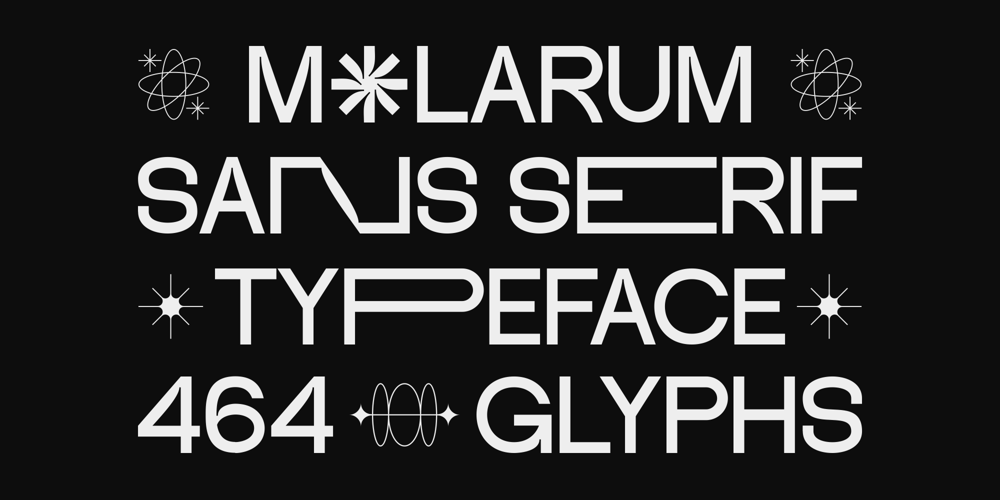
Molarum Font Family was designed by Febrie Setiawan and published by Marvadesign. Molarum contains 1 styles and family package options. Introducing Molarum is a contemporary sans-serif typeface designed with a modern aesthetic. It features clean, geometric lines and a sleek appearance, making it an excellent choice for a wide range of design applications. The font includes 464 glyphs, offering a versatile set of characters to accommodate various languages and design needs. One of the standout aspects of Molarum is its unique alternative characters, which provide designers with creative flexibility and the ability to craft distinctive visual identities. These alternative characters allow for subtle customizations that can make brand identity, corporate designs, and digital products stand out. Molarum’s versatility extends to its suitability for branding, company identities, and a variety of digital products. Whether used in logos, website designs, or corporate materials, Molarum delivers a professional and modern feel that aligns with contemporary design trends.